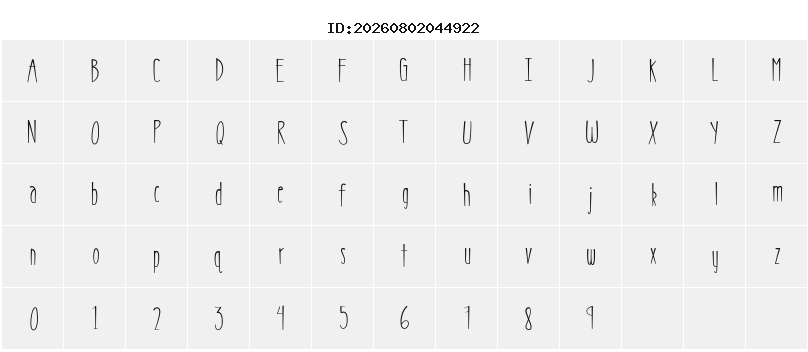
• Font Name: MRF- Pixeldust
• Font ID: MRF- Pixeldust:Version 1.00
• Full Font Name: MRF- Pixeldust
• Version: Version 1.00 February 23, 2016, initial release
• PostScript Name: MRF-Pixeldust
• Character Count: 315
• Designer: Sabrina Schleiger- Monkey Roodles Fonts
About MRF- Pixeldust.ttf
MRF- Pixeldust.ttf is a modern, elegant sans-serif font designed for ultimate readability and visual harmony. Perfect for branding, headlines, web design, and print materials.